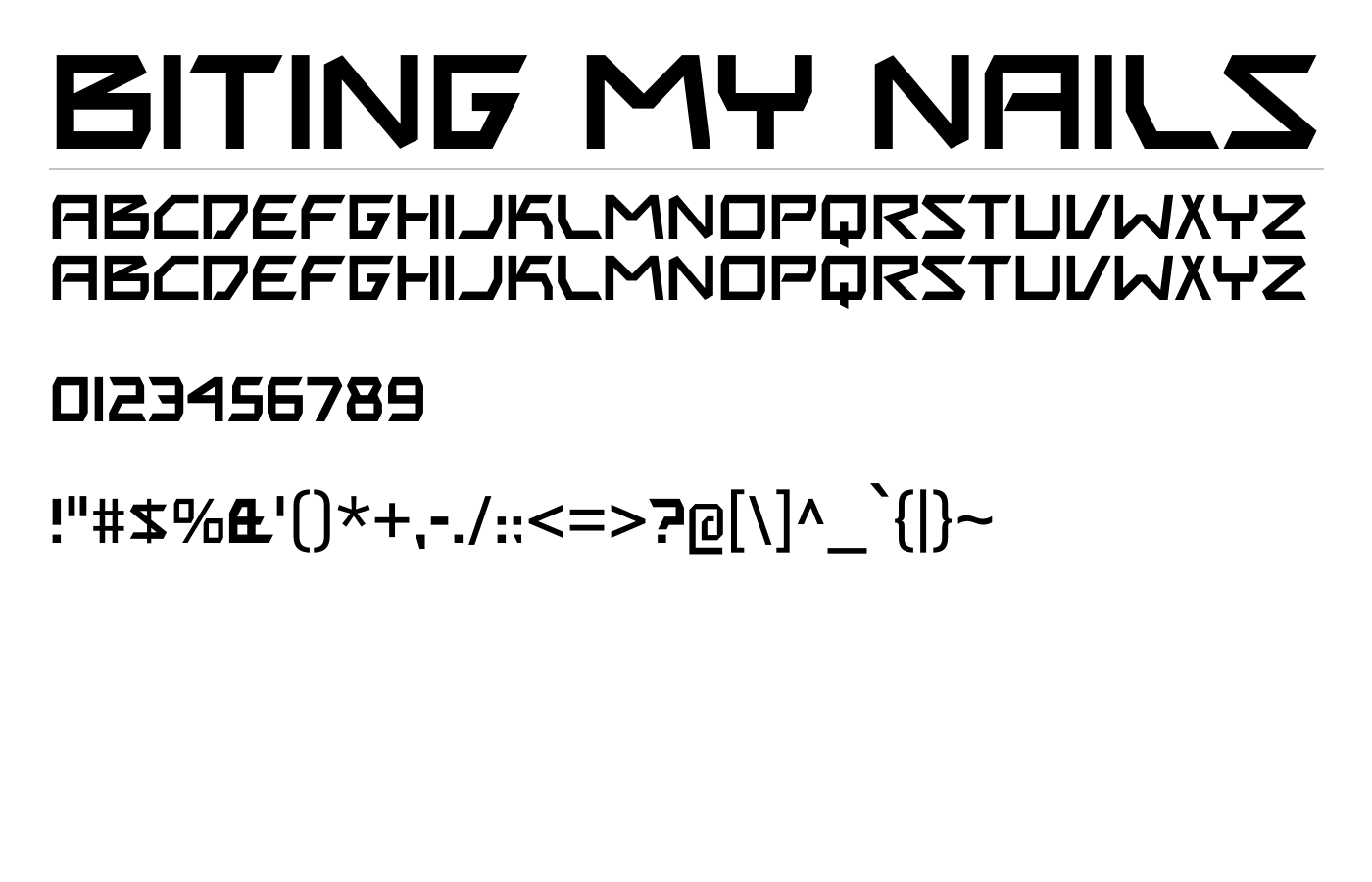
Biting My Nails is a bold, angular sans serif font with a futuristic, tech-inspired vibe, featuring sharp geometric shapes and consistent stroke weight. Its condensed letterforms and unique stylized characters make it ideal for eye-catching headlines, logos, or branding where a modern and edgy look is desired. This font works best in designs seeking a strong, dynamic personality with a distinctive, modern flair.
Biting My Nails Font
About Biting My Nails Font
| Font family | Biting My Nails Font |
| Designer | Raymond Larabie |